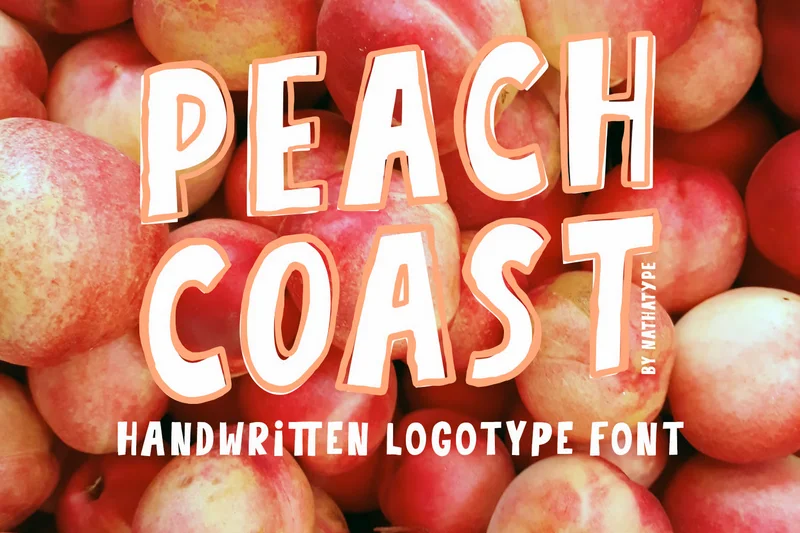
Peach Coast – Handwritten Logotype Font
Peach Coast is a bold, uppercases display font that captures the perfect balance between retro charm and modern design. Designed to grab attention, Peach Coast brings a sunny, coastal vibe to your typography. Its smooth curves bring out a friendly and approachable feel. The outlined weight adds depth and dimension, allowing your text to pop off the page or screen. In addition, enjoy the features here.
Alternates
Numerals and Punctuations
Peach Coast fits in branding, quotes, name cards, logos, posters, and many more designs. Find out more ways to use this font by taking a look at the font preview.